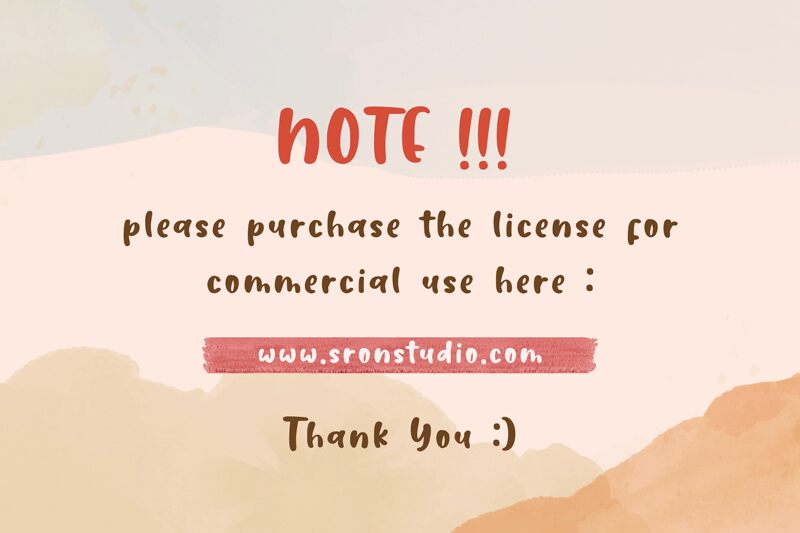
Aishiteru Darling
Aishiteru Darling font by Sronstudio is a beautiful handwritten brush style to fall in love with at first sight. Friendly, casual, and inviting like a typical handwriting typeface, this one carries additional warmth and excitement to it. Making use of light lines mixed with dark inks, the font can be considered both modern and traditional.
This free brush font has innumerable use cases in designs like logos, packages, invitations for weddings or events, website headings or titles, books covers or posters… Overall any project that needs expressive text can enjoy Aishiteru Darling’s qualities.